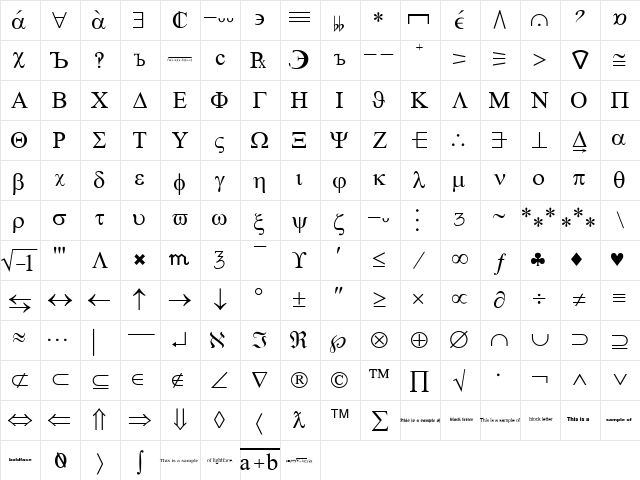
WP Symbol Regular
Design Context for WP Symbol
WP Symbol is a composed and adaptable typeface that performs quietly and consistently across a wide range of design contexts.